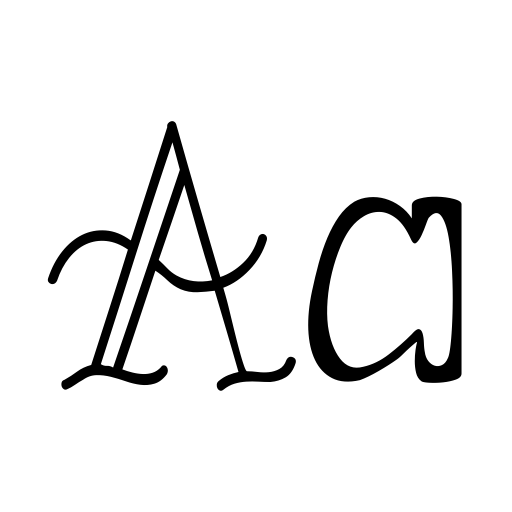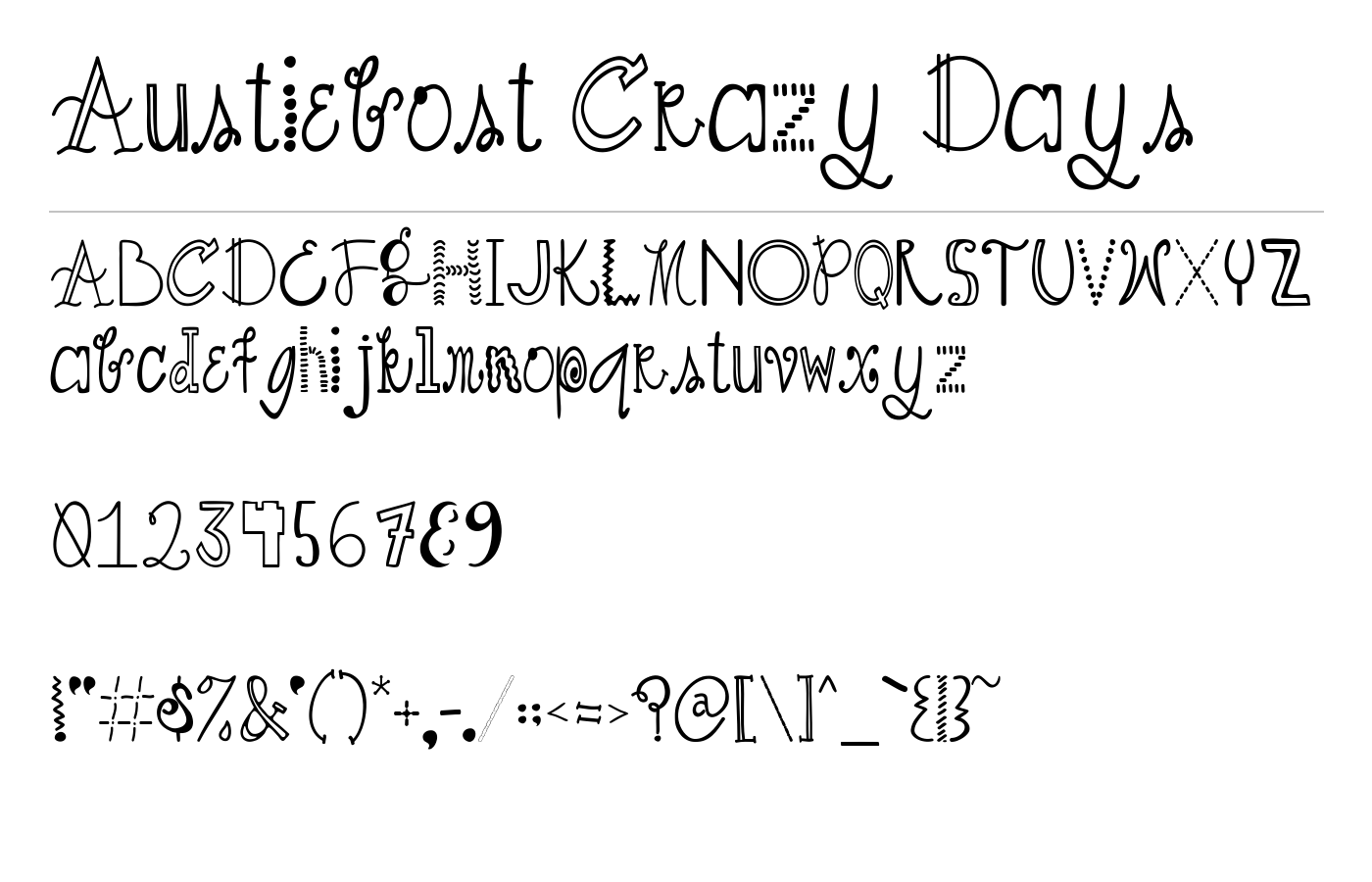
Austiebost Crazy Days is a playful and whimsical decorative font characterized by its hand-drawn, quirky letterforms with varying stroke styles and unique ornamental details in each character. Its light weight and irregular shapes create a lively and informal feel, perfect for creative projects that seek a fun, artistic, or vintage-inspired vibe. This font works well for eye-catching logos, posters, invitations, and quirky branding where a distinct and expressive personality is desired.